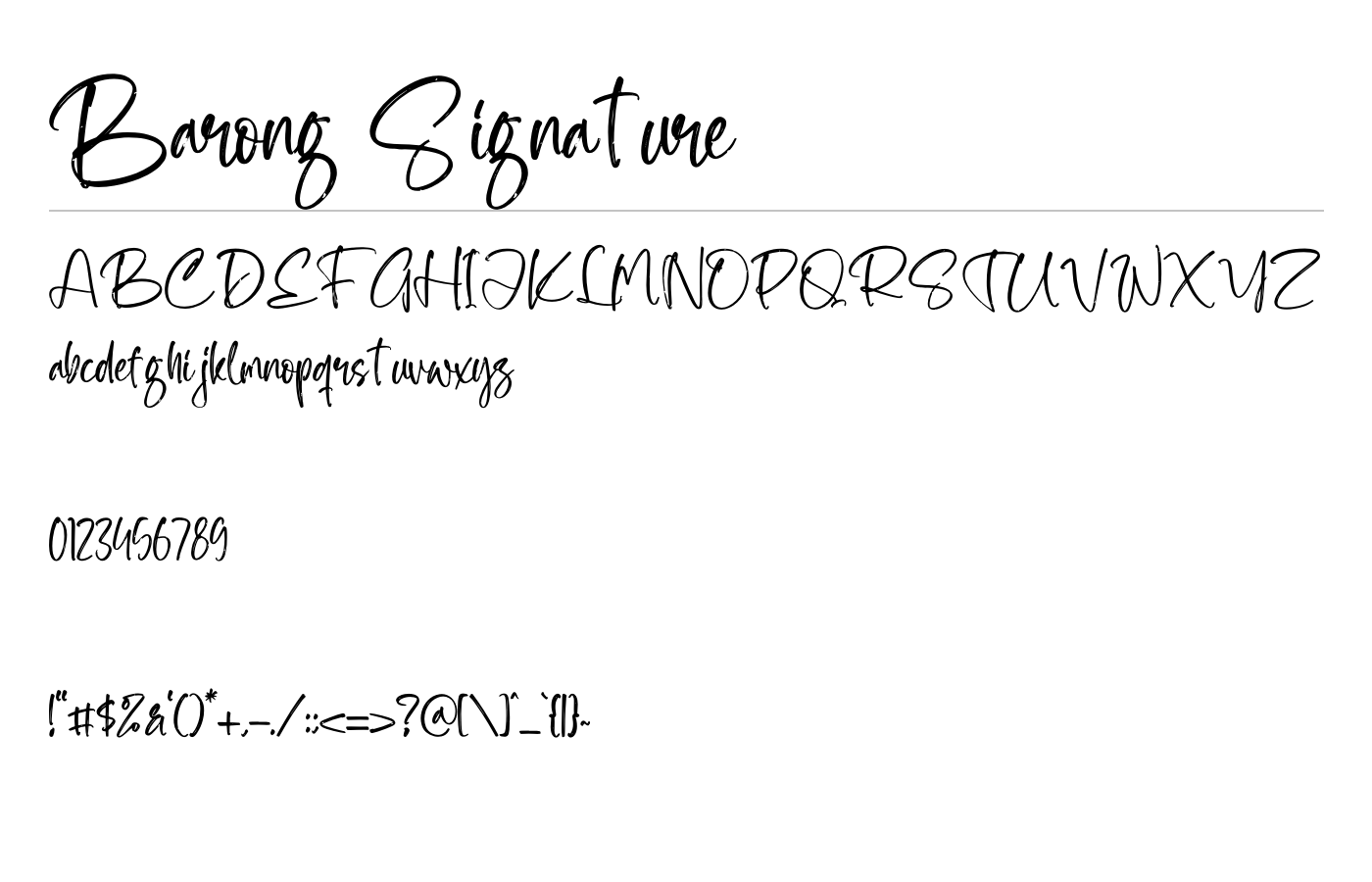
Barong Signature is a stylish and elegant handwritten script font that features a natural, flowing appearance with varied stroke widths and slender letterforms. Its informal yet refined character makes it perfect for personal branding, invitations, logos, and packaging where a sophisticated, authentic touch is desired. This font adds a charming, artistic feel that works well for creative projects seeking a modern, signature-style flair.
Barong Signature Font
About Barong Signature Font
| Font family | Barong Signature Font |